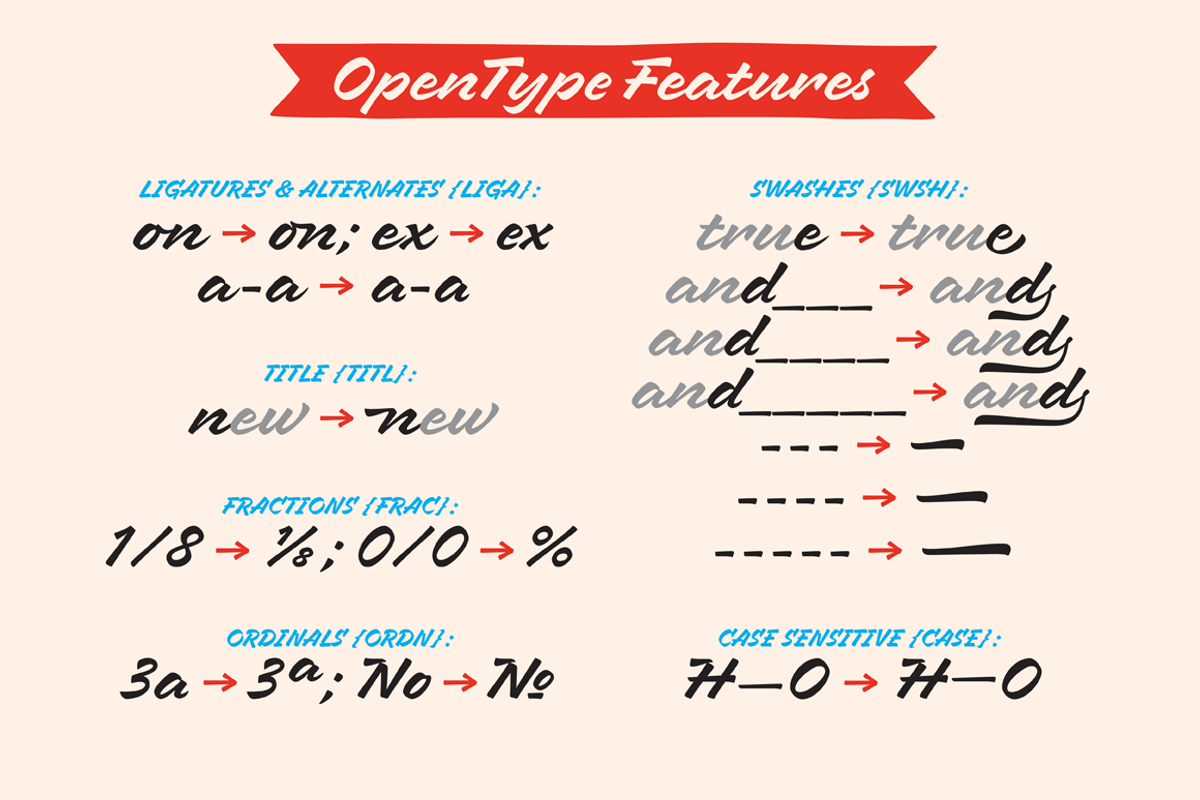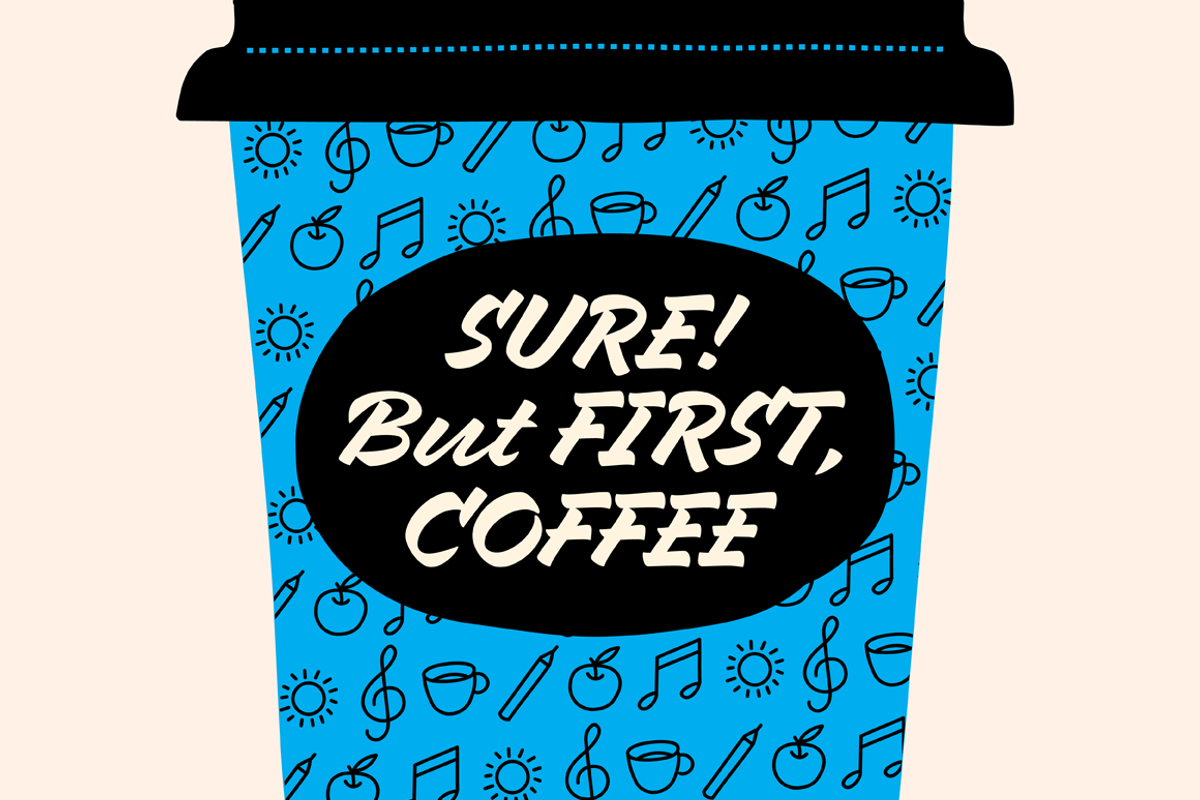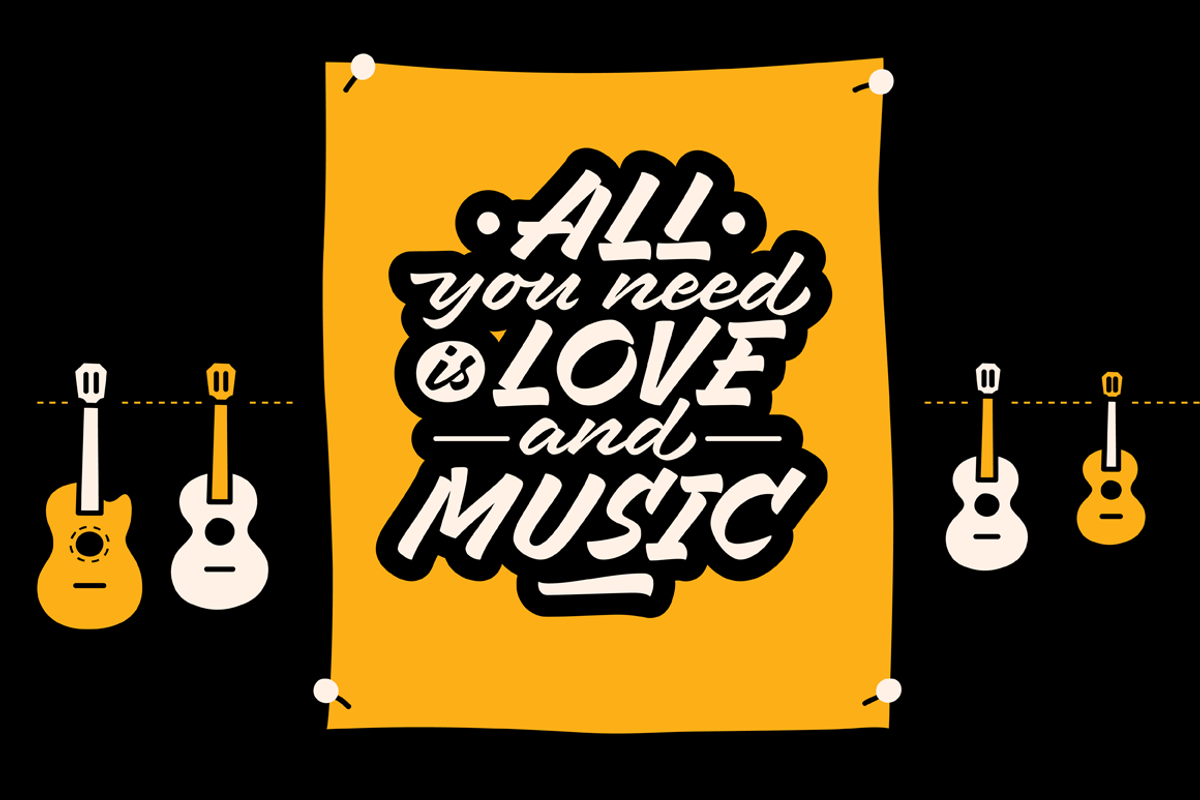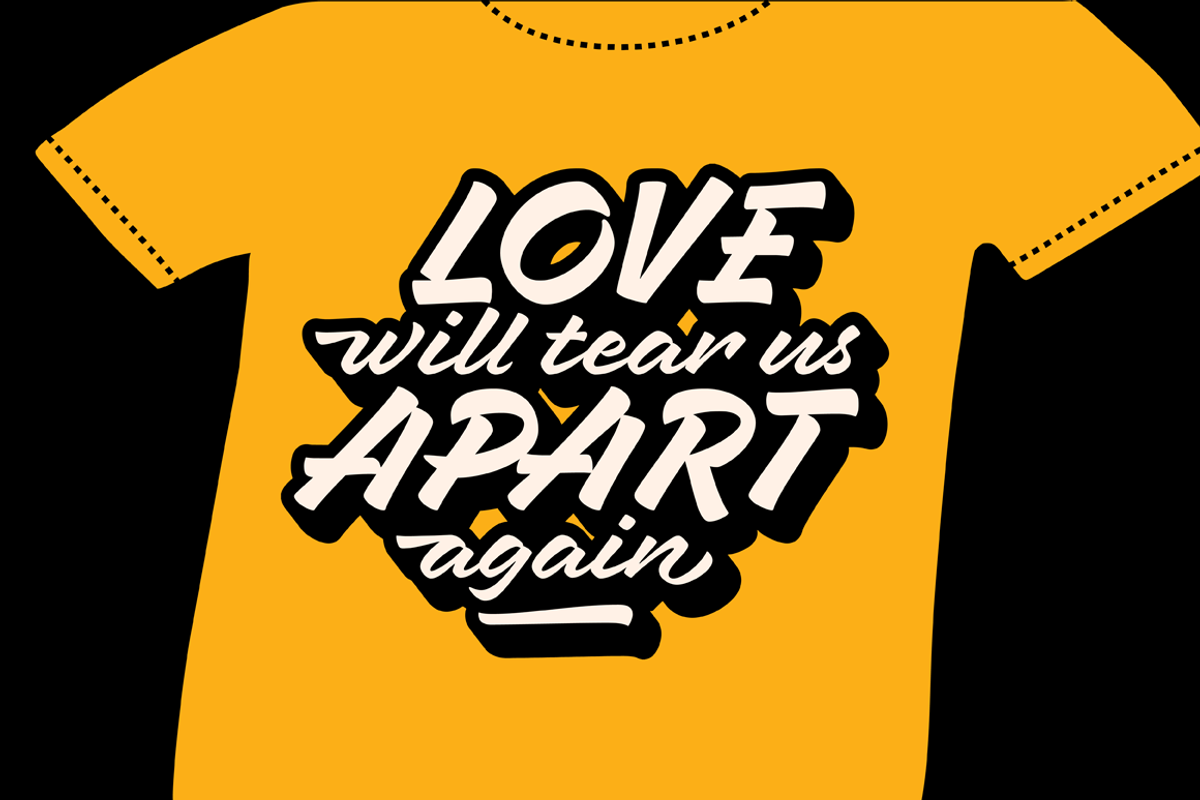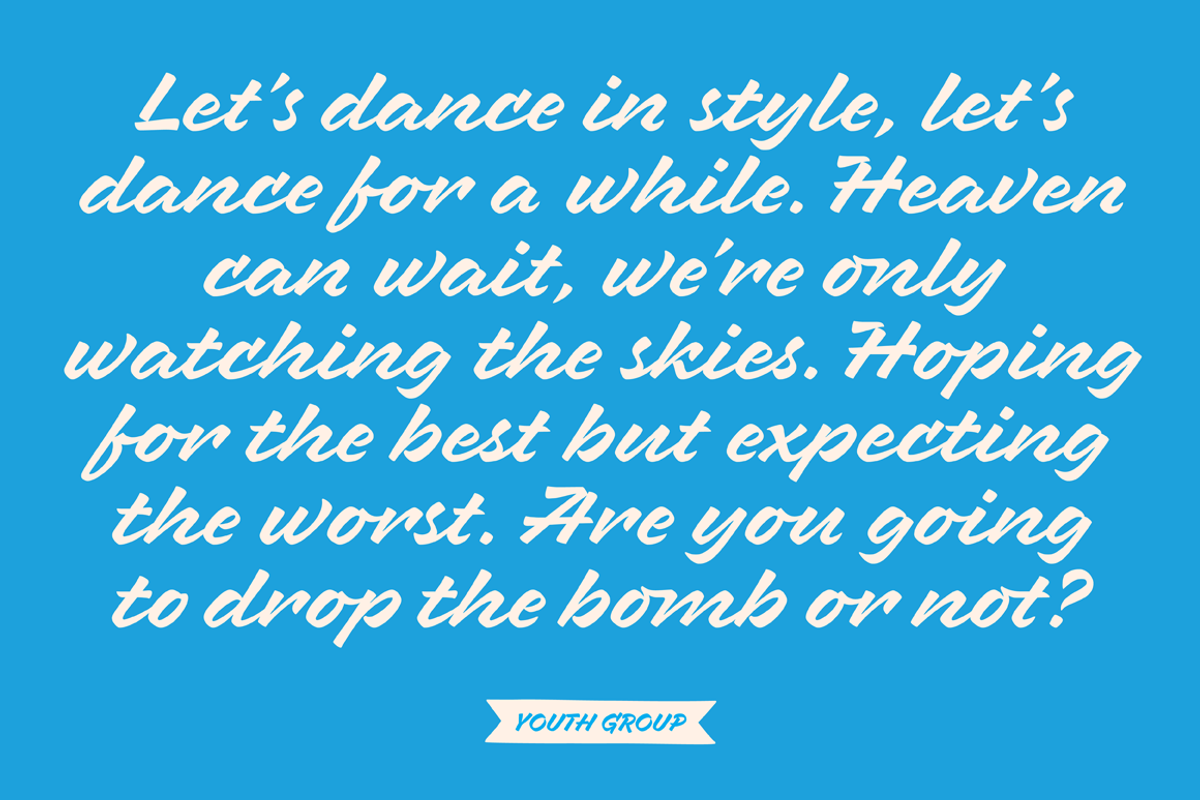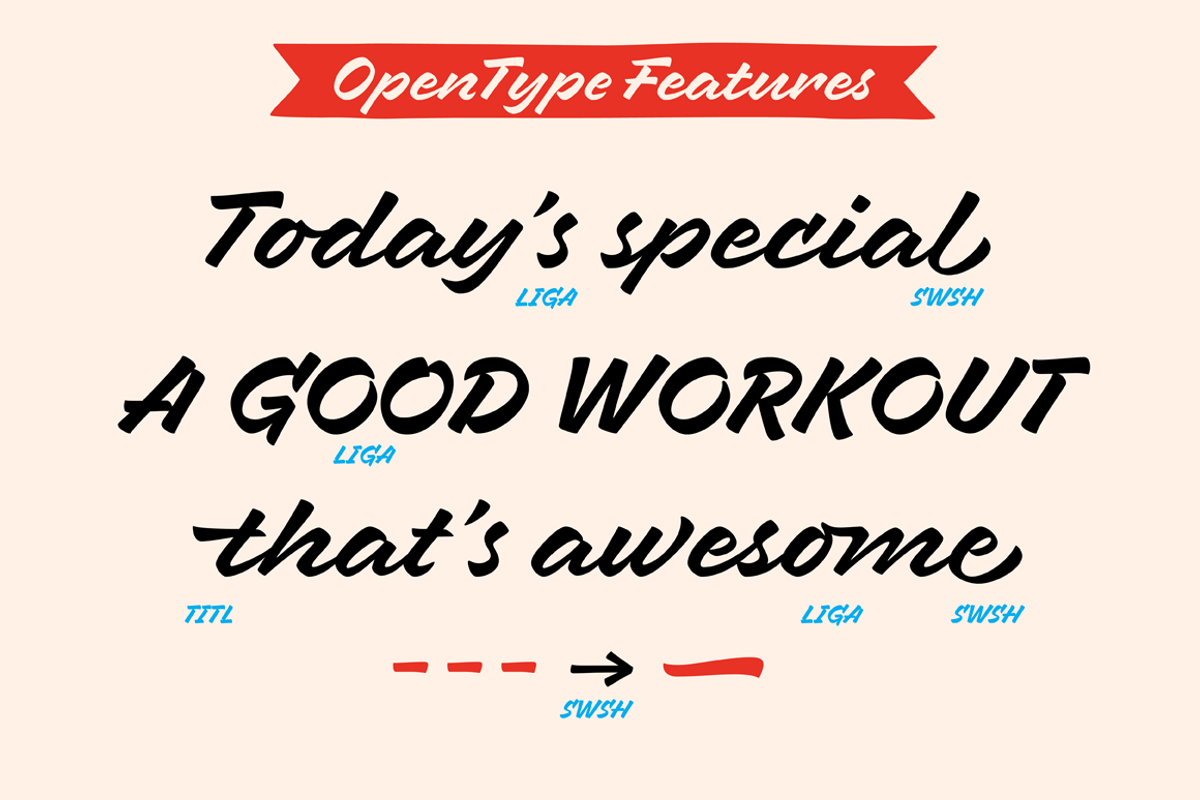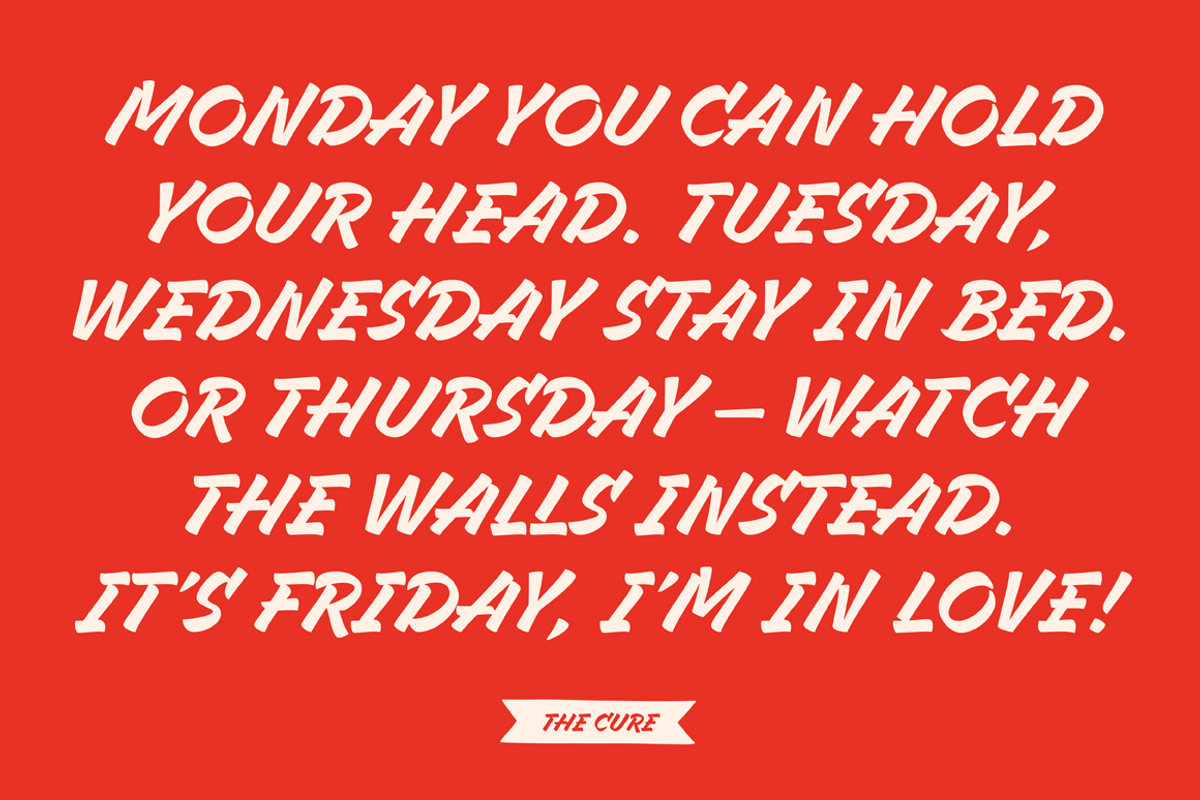
Mixed Tape Fonts - 50% off by Ksenia Belobrova is a font selected for branding, posters, packaging, typography.
- Mixed Tape includes 2 Styles (OTF-files): Mixed Tape Regular Mixed Tape Capitals You can use Mixed Tape for posters, prints, menus, packagin
- It also has swashes, titles, fractions, ordinals and case sensitive forms and includes multilingual support.
- Mixed Tape has a lot of alternates and ligatures which are built into the ‘Liga’ feature that is turned on by default.
- Mixed Tape Regular
- Mixed Tape Capitals